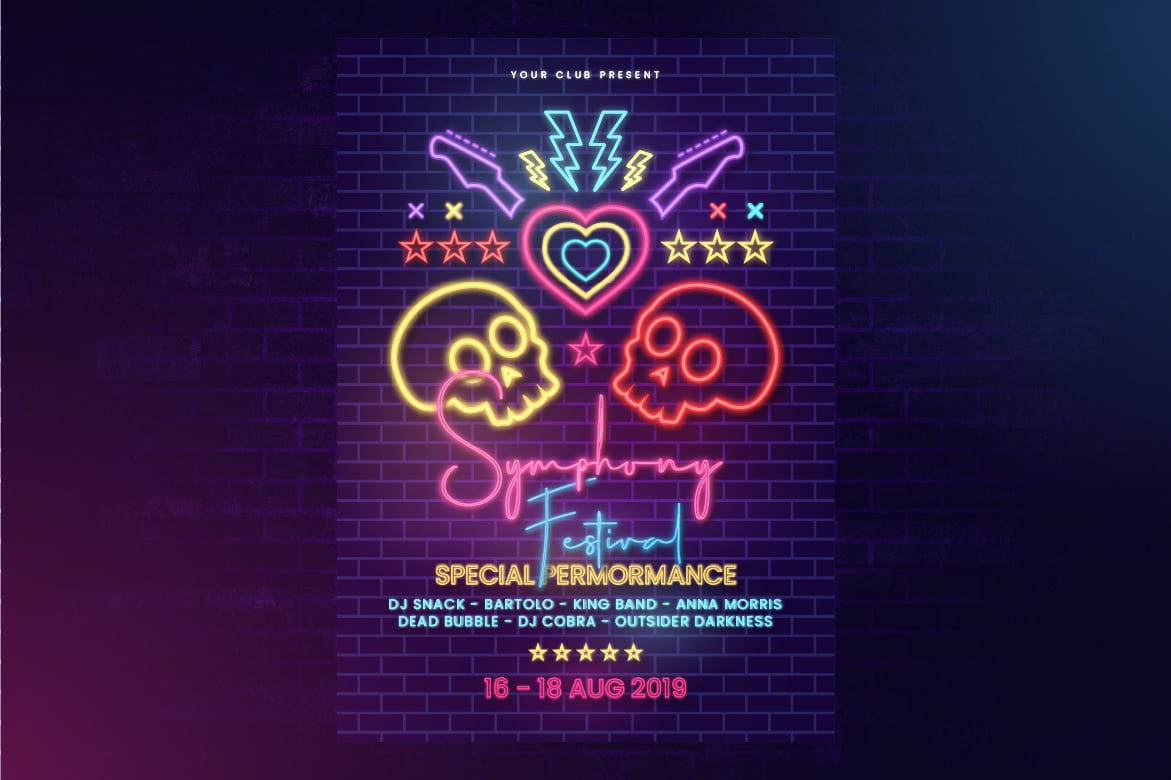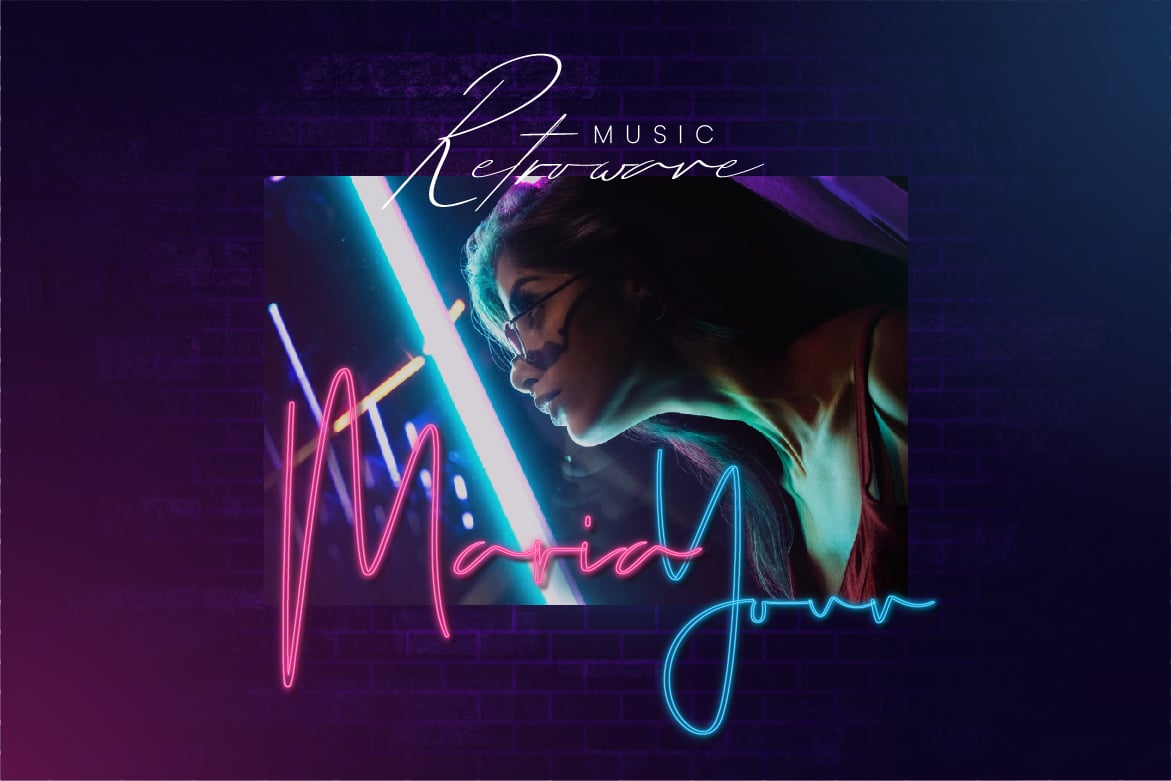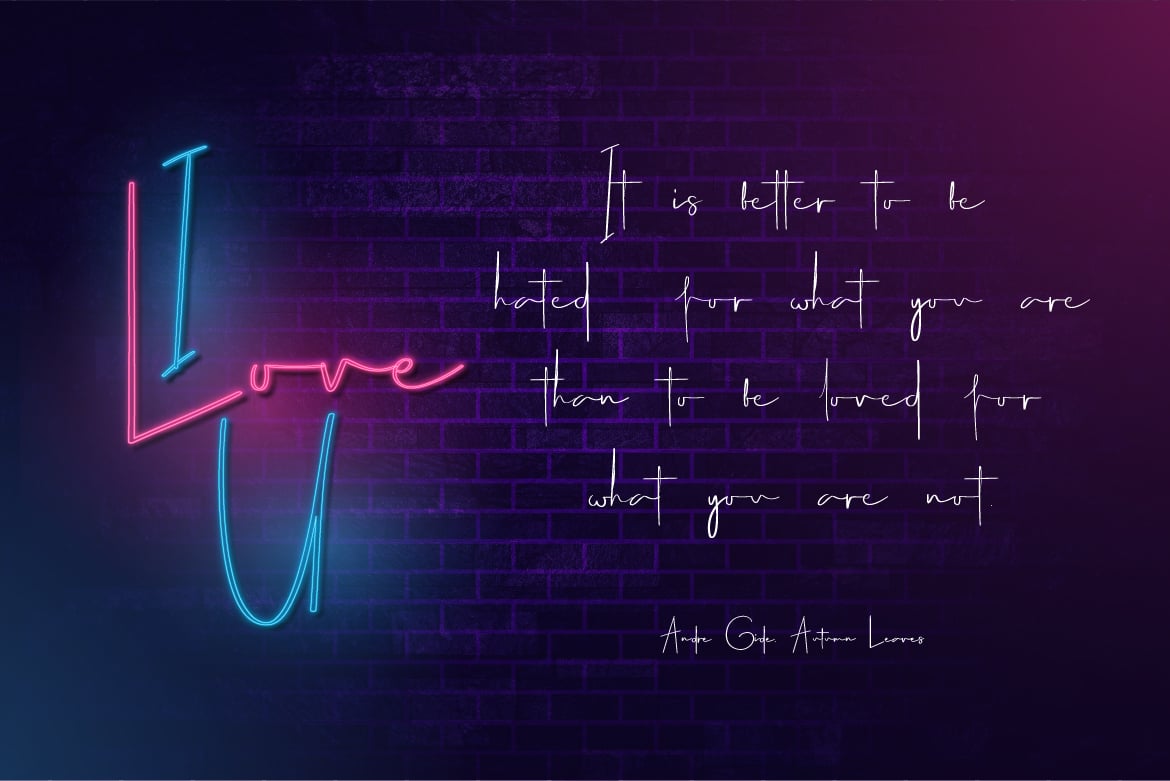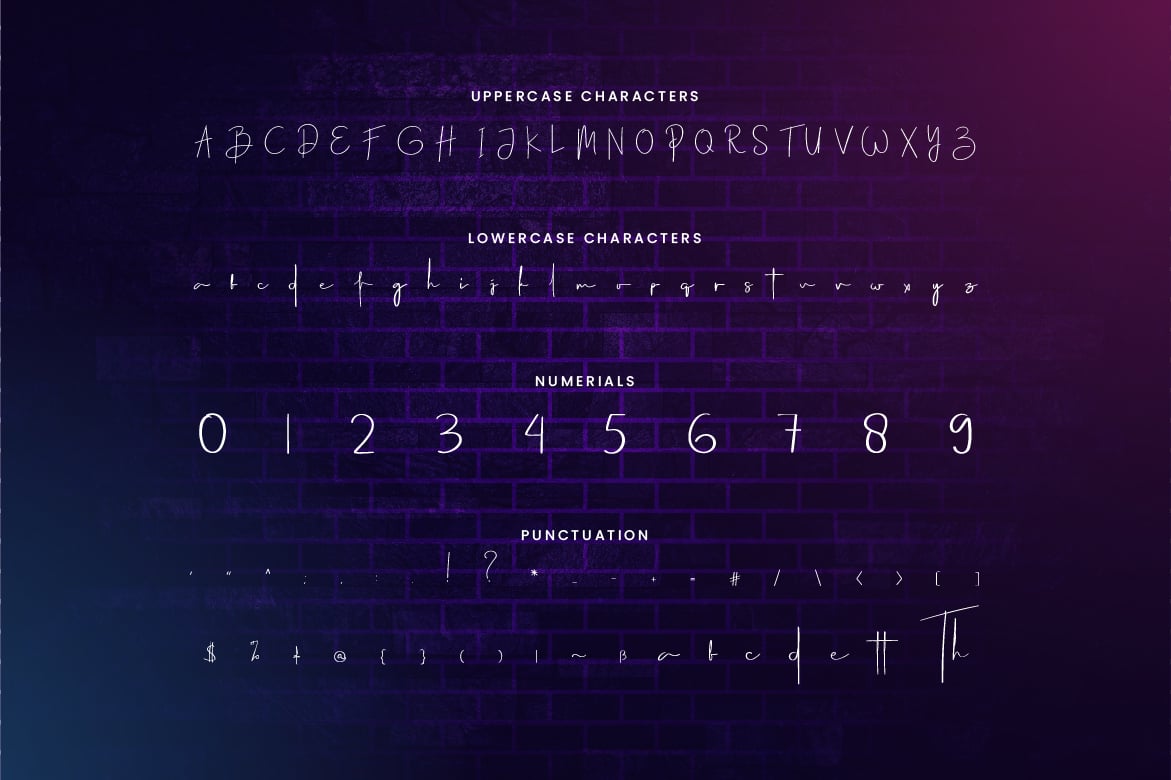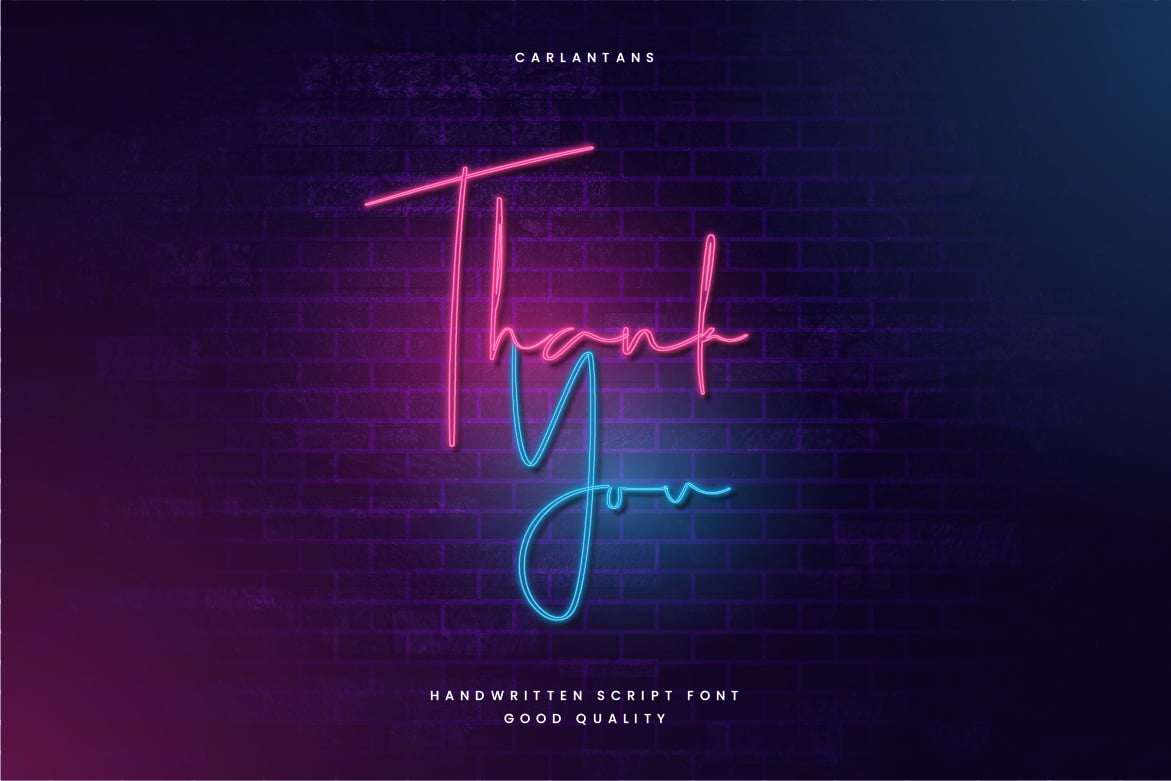
Carlantans – Elegant Signature Font
Are you looking for an elegant signature font? We can help! Try to download our Carlantans Signature font. The font is suitable to use for all all purpose. Try to use it on Wedding invitation, greeting card, poster, quotes, postcard, photography, branding, editorial, billboard, advertisement, signature and other to see the best of it π